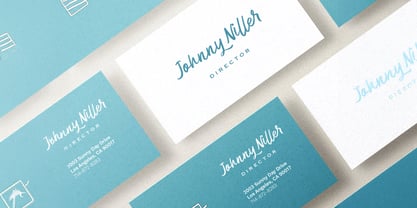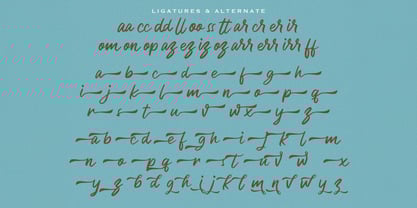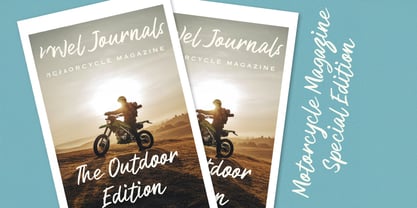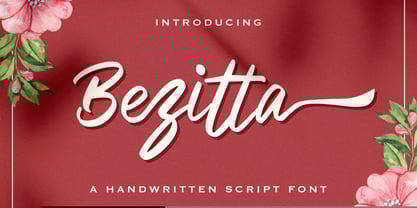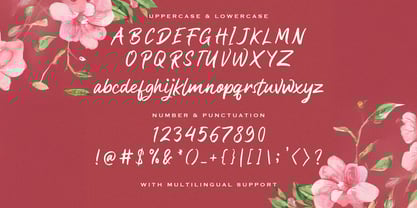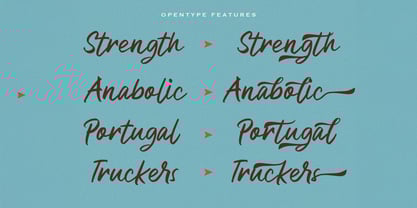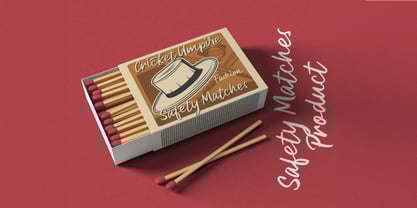
The Bezitta Font Family was designed by Virgiawan Listanto and published by Stringlabs Creative Studio. Bezitta contains 1 styles. More about this family
Bezitta is a stylish handwritten font that blends natural elegance with a soft, personal touch. Its fluid strokes and clean letterforms give your designs a refined, yet approachable feel perfect for projects that need a hint of charm and authenticity.
Designers: Virgiawan Listanto
Foundry: Stringlabs Creative Studio
Bezitta